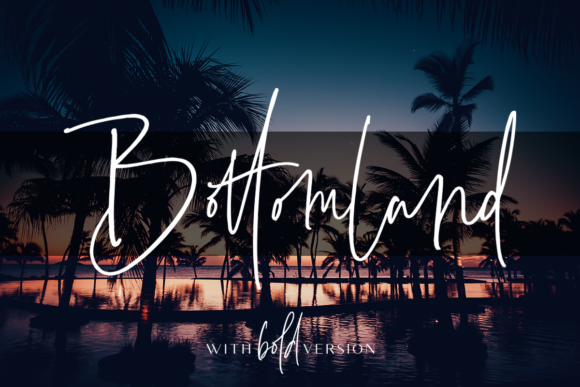
Prepare yourself for a lettering journey like no other, where elegance and modernity collide to create Bottomland Font, the script font that will redefine your creative horizons.
Step into a world of beautiful script lettering, where each character dances across the page with grace and charm. Bottomland's stylish letter shapes, crafted with a contemporary twist, are ready to bring a touch of sophistication to your designs.
Unleash your imagination and witness Bottomland's versatility take your projects to new heights. Whether you're designing invitations, logos, branding, or adding a personal touch to your social media presence, Bottomland is your ultimate creative companion.
Experience the joy of effortless creativity as Bottomland's smooth lines and elegant curves guide your designs with ease. Its user-friendly nature makes it accessible to everyone, from seasoned designers to enthusiastic beginners.
Dive into the world of Bottomland Font, where your lettering dreams become a reality. Let its charm and elegance elevate your projects, leaving a lasting impression on your audience.